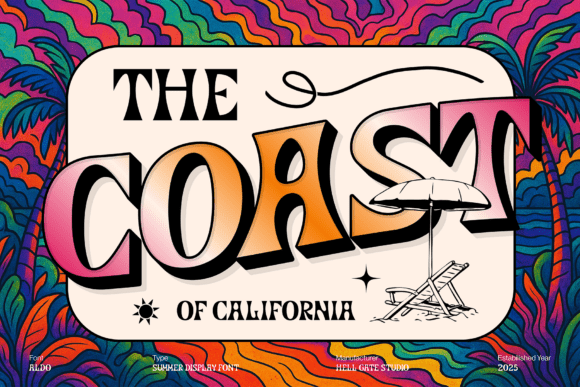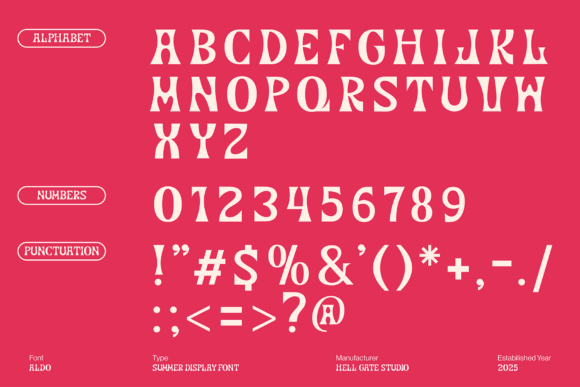
Welcome to the Vibrant World of Aldo: The Perfect Summer Display Font
Ah, summer is here! The sun is shining, the ice cream is melting, and we’re all itching to dive into some fresh and fun design projects. I still remember the exact moment when I discovered the perfect font to capture the essence of warm-weather themes – Aldo. I was working on a client’s summer-themed branding project, and I was struggling to find a font that screamed “summer vibes.” That’s when I stumbled upon Aldo, and it instantly became my go-to font for all things sunny and bright.
An Honest Review of Aldo
What I Love About Aldo ✨
- ✅ Vibrant and Fun: Aldo is the perfect blend of playfulness and elegance, making it ideal for summer-themed designs.
- ✅ Editable Text and Color Attributes: This font is incredibly adaptable, allowing you to match your specific style needs with ease.
- ✅ High-Quality Rendering: Aldo promises crisp and clear rendering, ensuring your designs look professional and polished.
- ⚠️ Limited Use Cases: While Aldo is perfect for summer-themed designs, it might not be the best fit for more formal or traditional projects.
- ⚠️ Glyph Limitations: Some users have noted that the font could benefit from a wider range of glyphs, but overall, it’s still a versatile choice.
The Story Behind Aldo
Aldo was designed with the intention of capturing the carefree spirit of summer. Its creator, a passionate typographer, drew inspiration from the sun-kissed beaches and vibrant festivals of the season. The result is a font that’s equal parts playful and sophisticated.
Q: What is the best way to use Aldo in my designs?
A: Aldo is perfect for summer-themed designs, such as posters, social media graphics, and branding materials. Experiment with different colors and OpenType features to make the most of this font.
Q: Is Aldo a versatile font?
A: While Aldo excels in summer-themed designs, it may not be the most versatile font for all projects. However, its editable text and color attributes make it adaptable to various design needs.